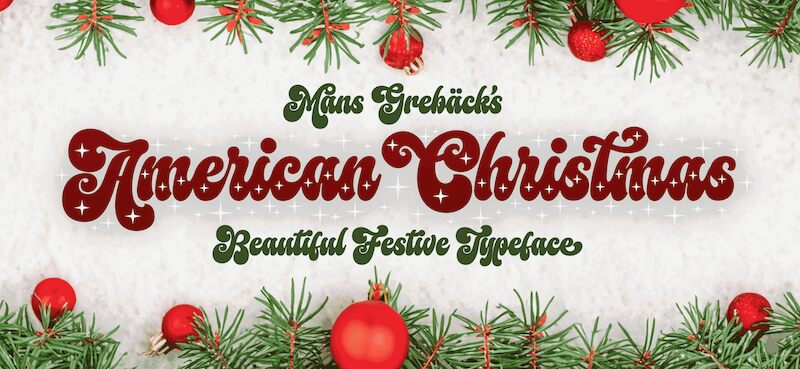
American Christmas, designed by the talented Mans Greback, is a typographic celebration of the holiday spirit. This extra-bold font encapsulates the essence of Christmas cheer with its funky and decorative style that exudes a retro vibe. Each letter in American Christmas seems to merrily prance on the canvas, evoking images of joyful carolers and festive decorations.
Perfect for a wide array of creative projects, this typeface shines in seasonal advertising, holiday greetings cards, event invitations, and themed marketing collateral. Its unique charm enhances any message by adding an unmistakable warmth and nostalgia that only this time of year can inspire. Embrace the yuletide season with American Christmas and let your designs tell a story wrapped in the delightful enchantment of this festive font.
Use parenthesis symbols () [] {} to make stars around any word.
Example: {Xmas}[Songs]
Use underscore _ after any word to make a swash.
Example: Santa_
Multiple underscores makes longer tails.
Example: Yuletide____